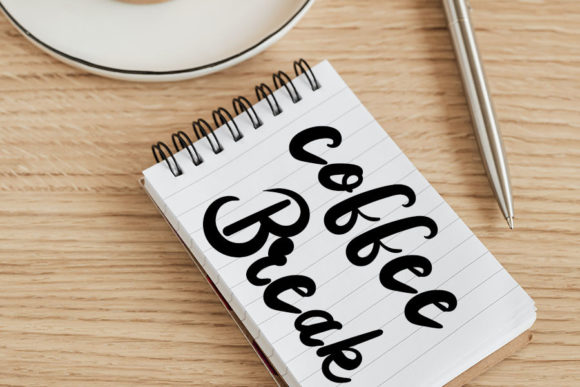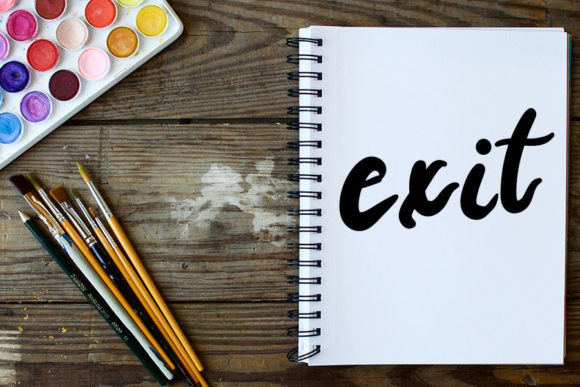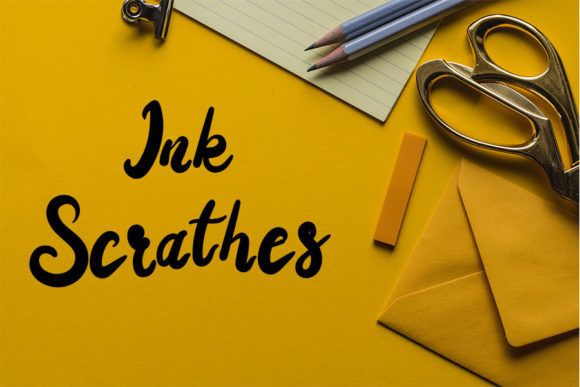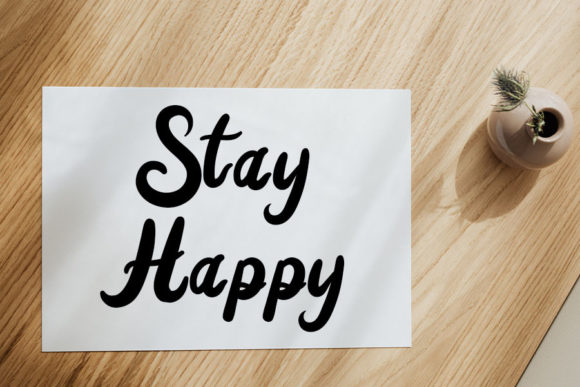
Comback Font
About Comback Font
Comback is an enchanting script font. This versatile script font has a wide spectrum of applications ranging from greeting cards to headlines and is guaranteed to add a well-balanced touch and lovely feel to your next project.